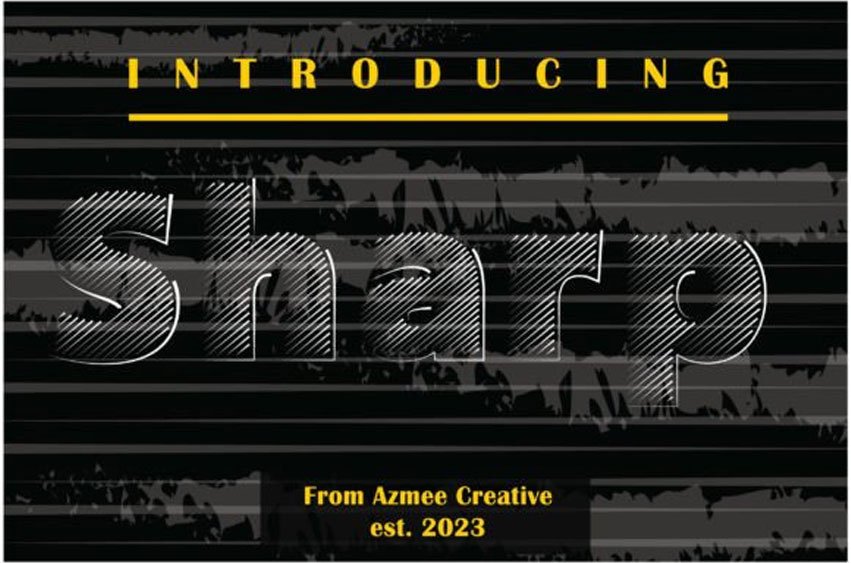
Sharp Font is a stylish and eye-catching typeface designed for use in headlines, titles, and other short bursts of text. With its bold lines, elegant curves, and unique character shapes, it adds a touch of sophistication to any design project.
Perfect for advertising, branding, and print design, this font will make your message stand out.